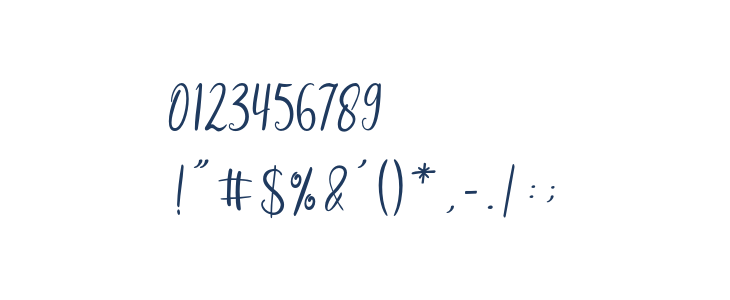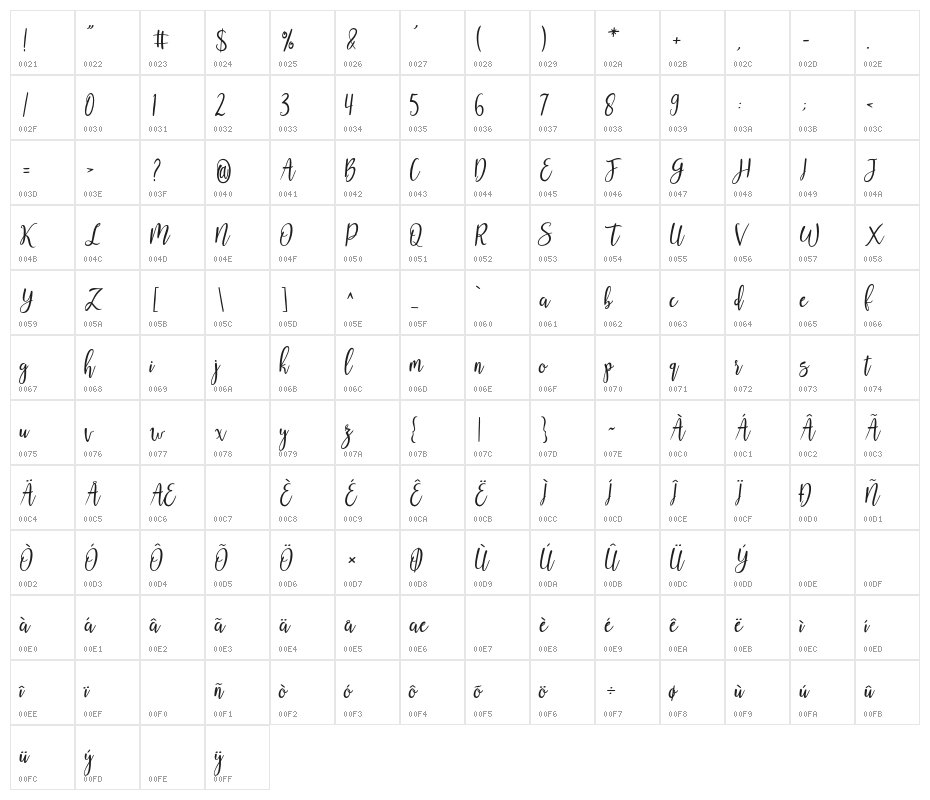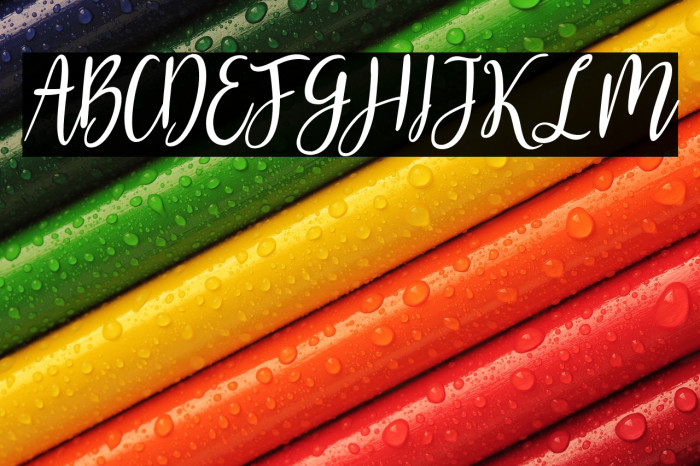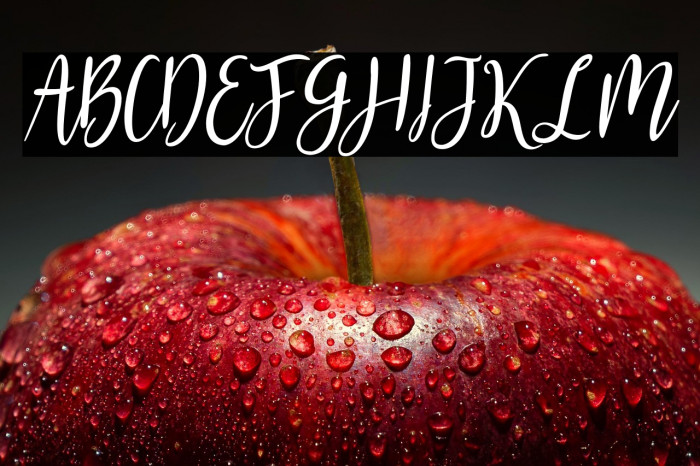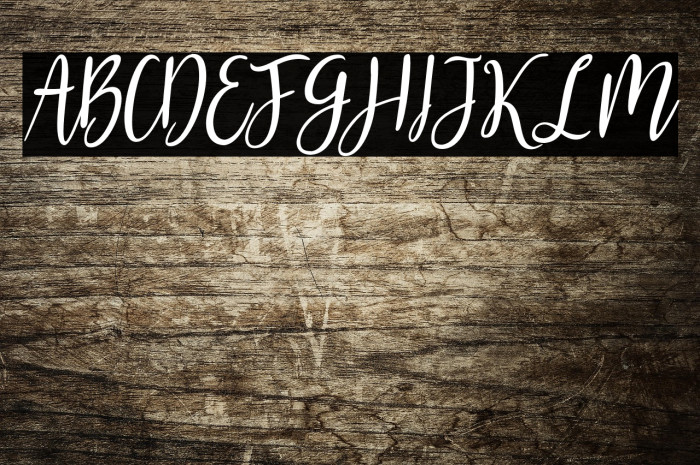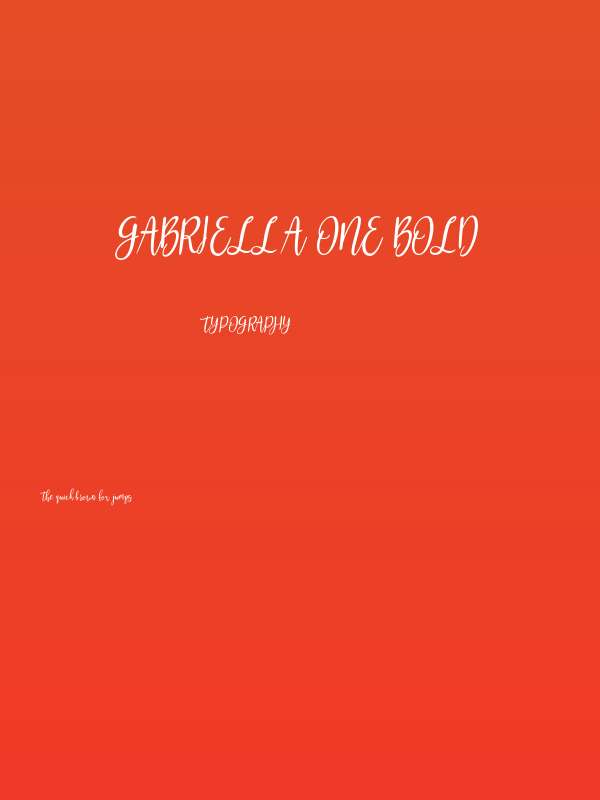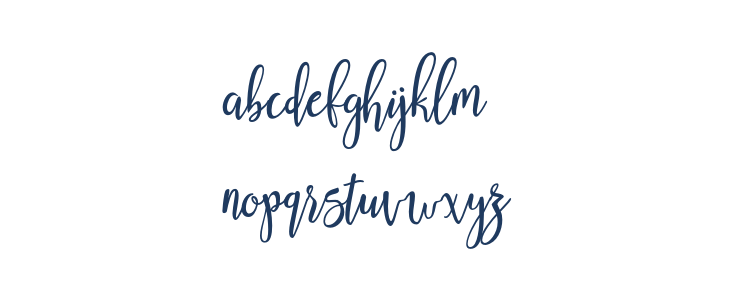
Gabriella One Bold Font
Gabriella One Bold Description
This font features a flowing, cursive style with elegant, sweeping lines that give it a sophisticated and artistic appearance. The uppercase letters are bold and prominent, with a slight slant that adds a dynamic feel. The lowercase letters maintain a consistent flow, complementing the uppercase with their graceful curves. Numbers are clear and legible, matching the overall aesthetic with a touch of flair. Special characters are designed to blend seamlessly with the letters, maintaining the font's cohesive look. This font exudes a sense of creativity and elegance, making it suitable for a variety of artistic applications.
| Overall Style | Elegant, Artistic |
| Proposed Projects | Ideal for wedding invitations, greeting cards, branding, and artistic projects requiring a touch of elegance. |